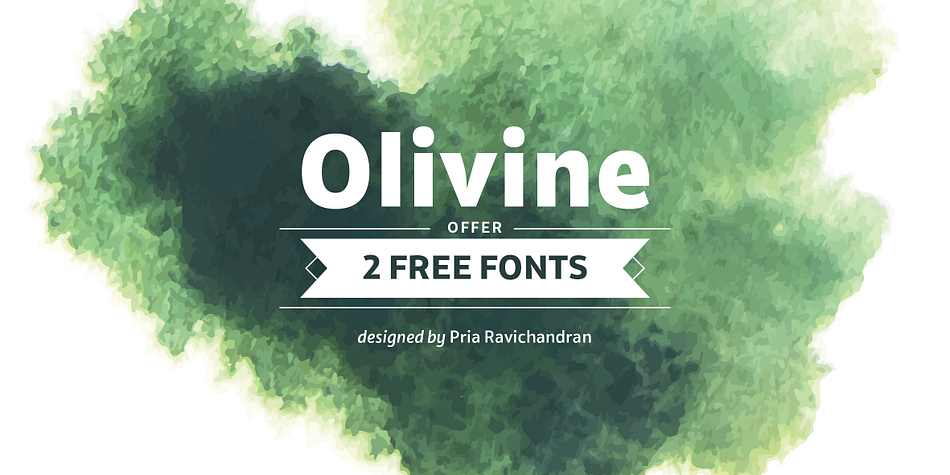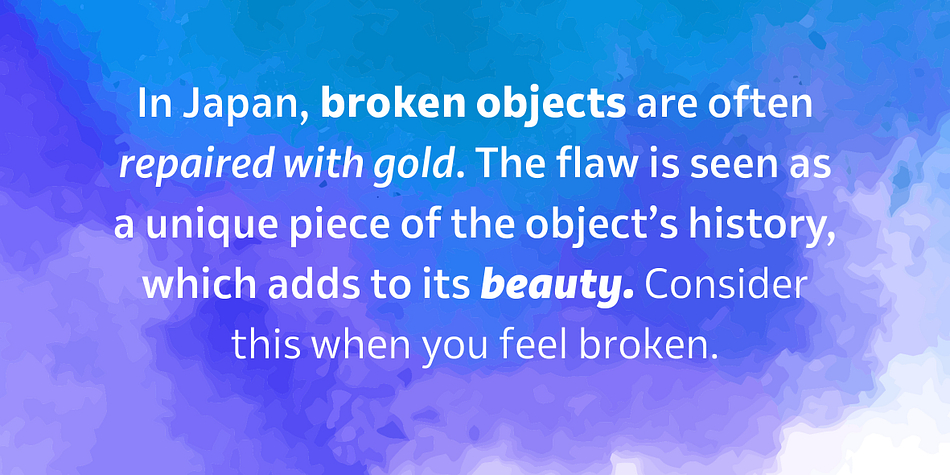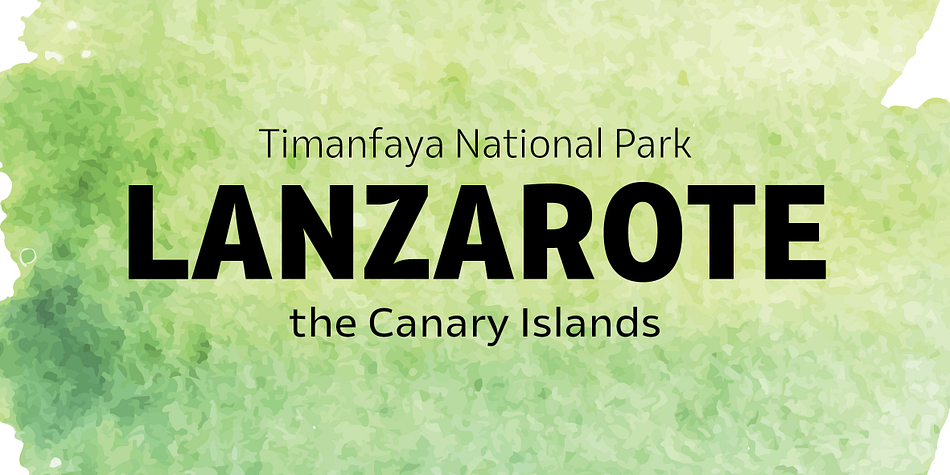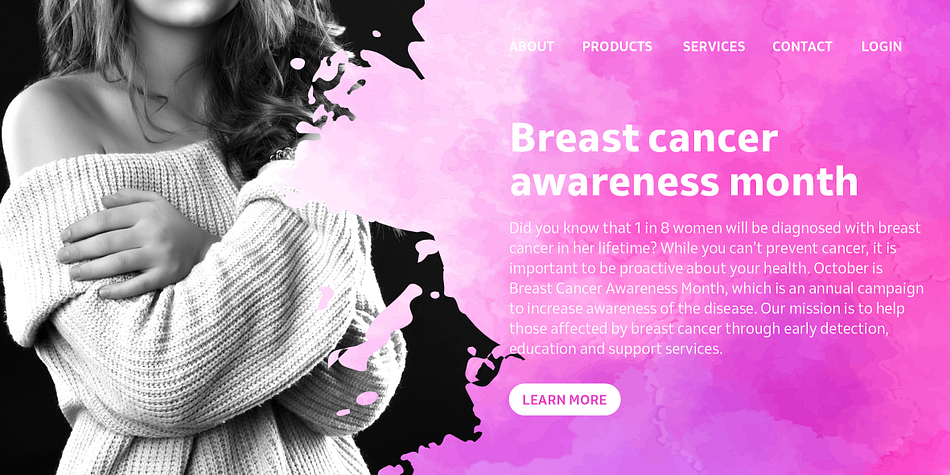
Designed by Pria Ravichandran, Olivine is a sans serif font family. This typeface has forty-two styles and was published by URW Type Foundry.
In an era of typographic neutrality, Pria Ravichandran adds spirit and flavour to the humanist sans, a genre that is known for legibility. Introducing Olivine.
Olivine is a versatile type family that performs admirably across sizes. It is designed with maximum care ensuring legibility across various sizes, angles and distances. The sturdy shapes and the exaggerated ink traps fade to produce an even typographic colour and a lively texture in smaller text sizes. In larger display settings, the details become self-conscious and highlight the spectacular quality of the design. Olivine is neither experimental nor minimal, striking a balance between formality and friendliness.
Olivine is clean as well as organic at the same time. Consisting of seven weights in roman and italics, the type-family address typographic hierarchy for texts of all kinds and sizes. Distinctive, yet neutral letterforms add personality to the type family. The counter-forms are large and open giving the design plenty of internal space which is balanced against the generous spacing of the characters. These features of Olivine make the reading process enjoyable in digital as well as the print medium. No squinting to read this type-family!
If you are looking to add some flavour into your design, try Olivine. It is a trend-setting typeface that we predict is going that extra mile. Try before you buy, Olivine Medium and Medium Italic are available free for unlimited commercial usage.